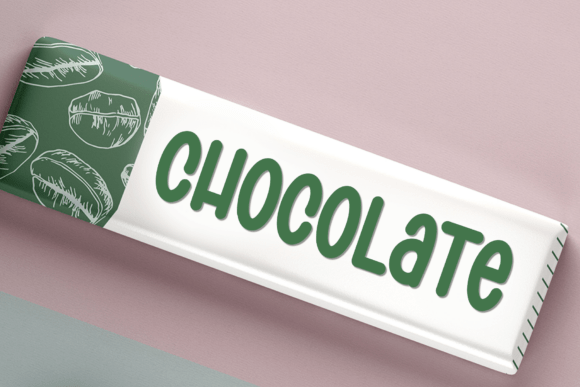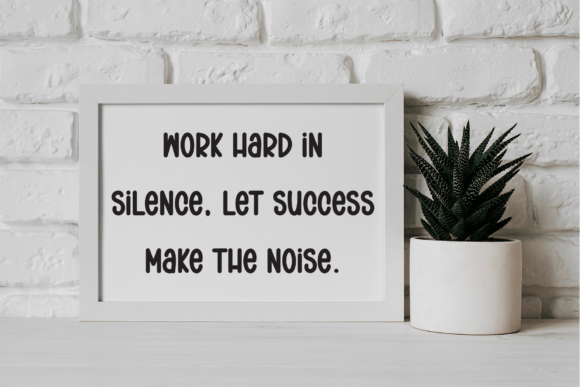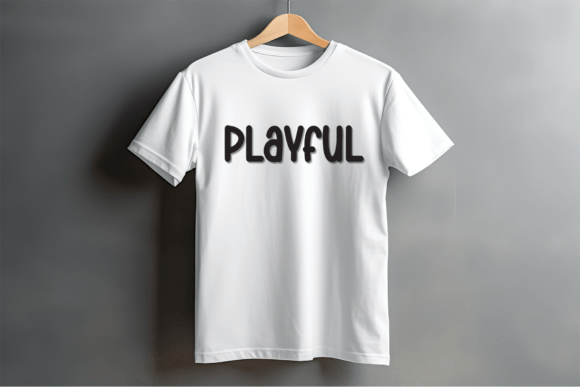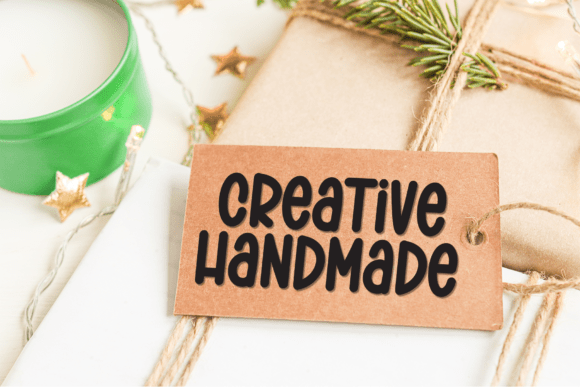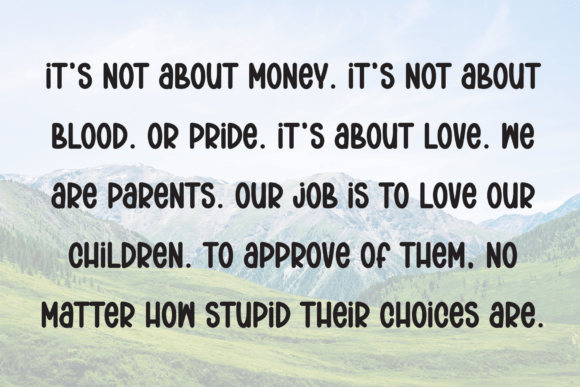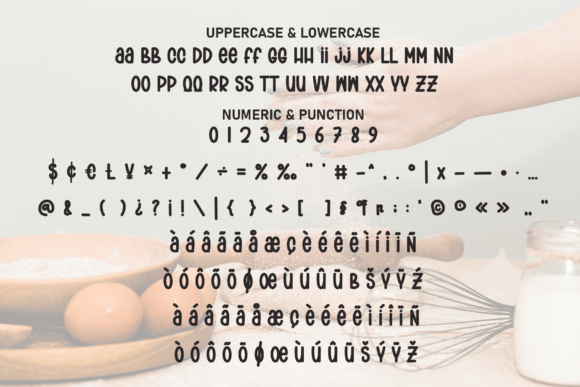
Introduction to Simple Baking Font
Do you remember that moment when a simple, hand-drawn design made your project stand out? Perhaps it was a quirky illustration or a charming typography that captured the essence of your creative vision. For designers, finding that perfect design resource can be a game-changer. And that’s exactly what we’re excited to introduce – a high-quality, free download font that’s sure to add a touch of magic to your designs: the Simple Baking Font.
Imagine being able to infuse your designs with a playful, whimsical feel that’s perfect for wedding invites, greeting cards, or any other project that requires a dash of happiness. With its transparent background and endearingly distinct style, the Simple Baking Font is a versatile design tool that’s sure to elevate your creative project to new heights.
Key Features of Simple Baking Font
- High-quality design for creative projects, perfect as a design resource for baking-related themes.
- Comes with a transparent background, allowing for easy customization and integration with various backgrounds.
- Features a clear and legible font size of 24 points, with a high resolution of 300 DPI, ideal for printed materials.
- Unique characteristics include a playful, handwritten style and a range of baking-related symbols and icons.
- Perfect for baking-related designs, such as recipe cards, baking-themed invitations, and more.
Honest Review: Simple Baking Font
As a designer, I’m always on the lookout for high-quality design resources that can elevate my creative projects. The Simple Baking Font caught my eye, and I was excited to give it a try.
Here are some things that worked well for me:
- ✨ The font is incredibly versatile, with a clean and modern aesthetic that works well for both digital and print projects.
- ✨ The transparent background option is a game-changer for designers who need to overlay text on images.
- ⚠️ The font doesn’t come with a lot of customization options, which may limit its appeal for designers who like to get creative with their typography.
- ⚠️ The font is only available in a single weight, which may not be suitable for designers who need to use the font for headings or emphasis.
Overall, I’m impressed with the Simple Baking Font, but I do wish it had more customization options and weight variations. Despite this, it’s still a solid design resource that can add a touch of elegance to your creative projects.
The Simple Baking Font is a high-quality design resource ideal for creative projects related to baking and cooking. Its transparent background makes it easy to customize and use in various applications.
Experiment with different font sizes, colors, and styles to create visually appealing designs. Use the transparent background to layer the font over images or other design elements.
The Simple Baking Font is ideal for bakeries, cafes, and restaurants. Use it to create menus, labels, and packaging that reflect your brand’s personality and style.